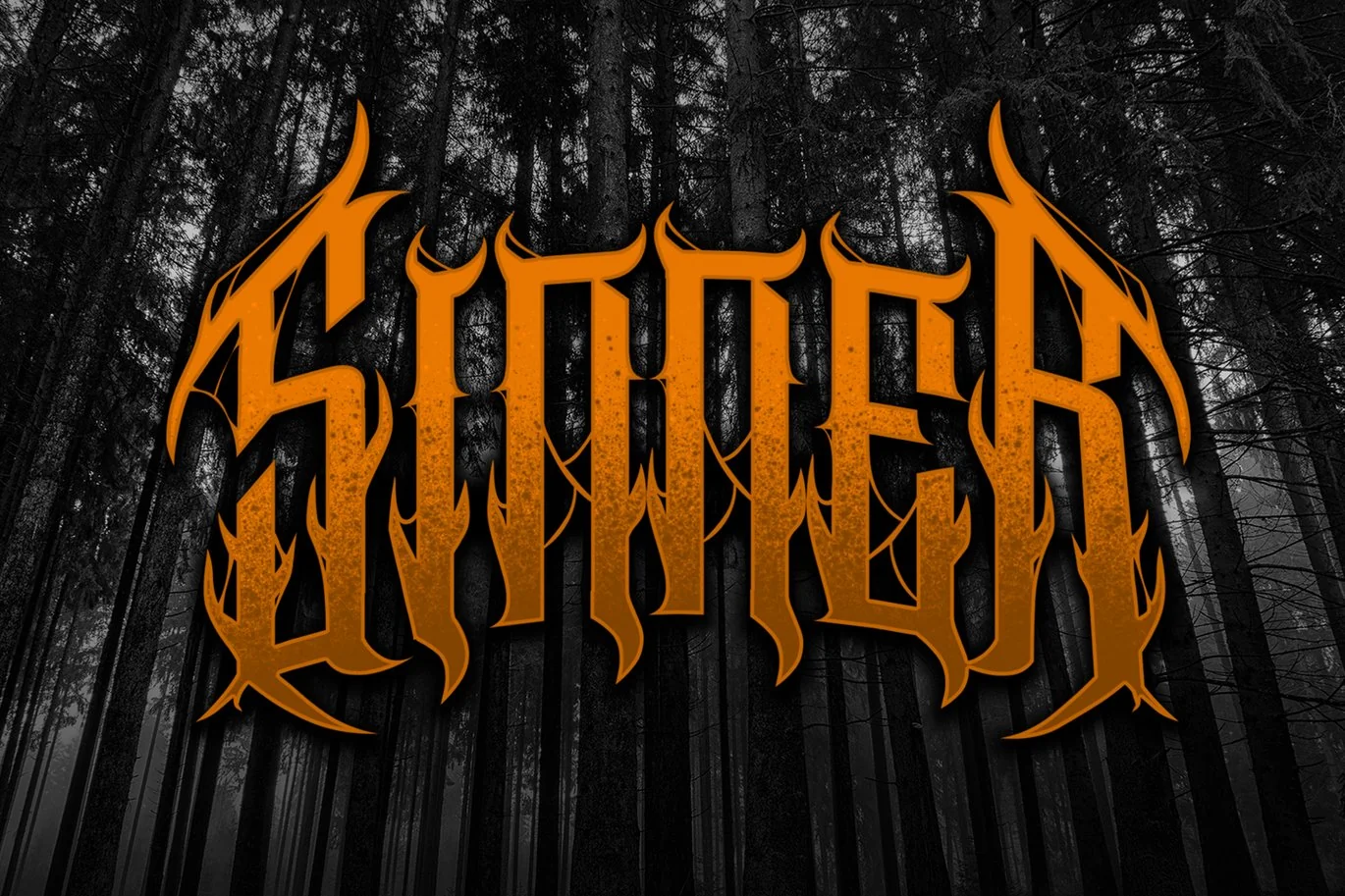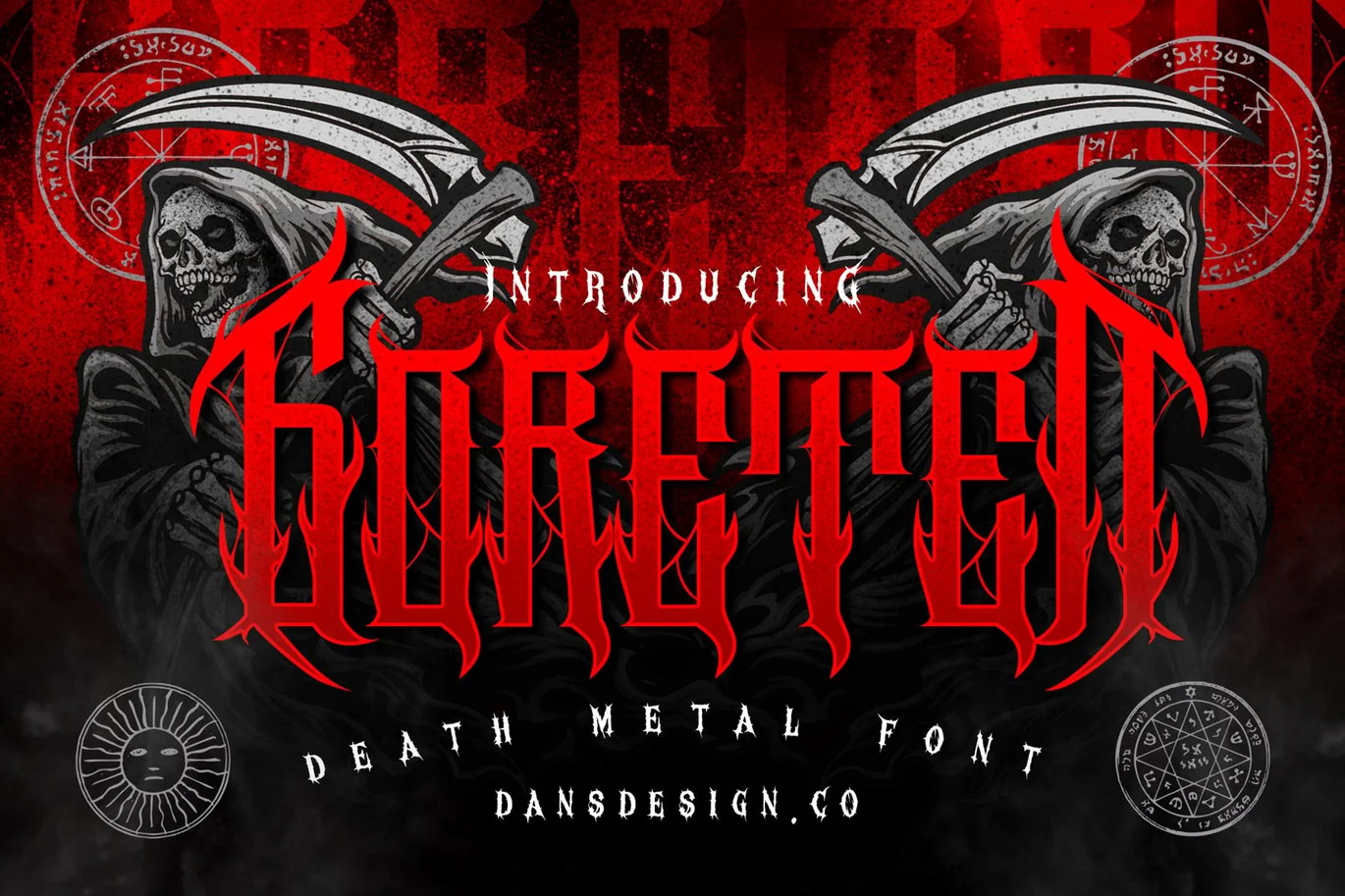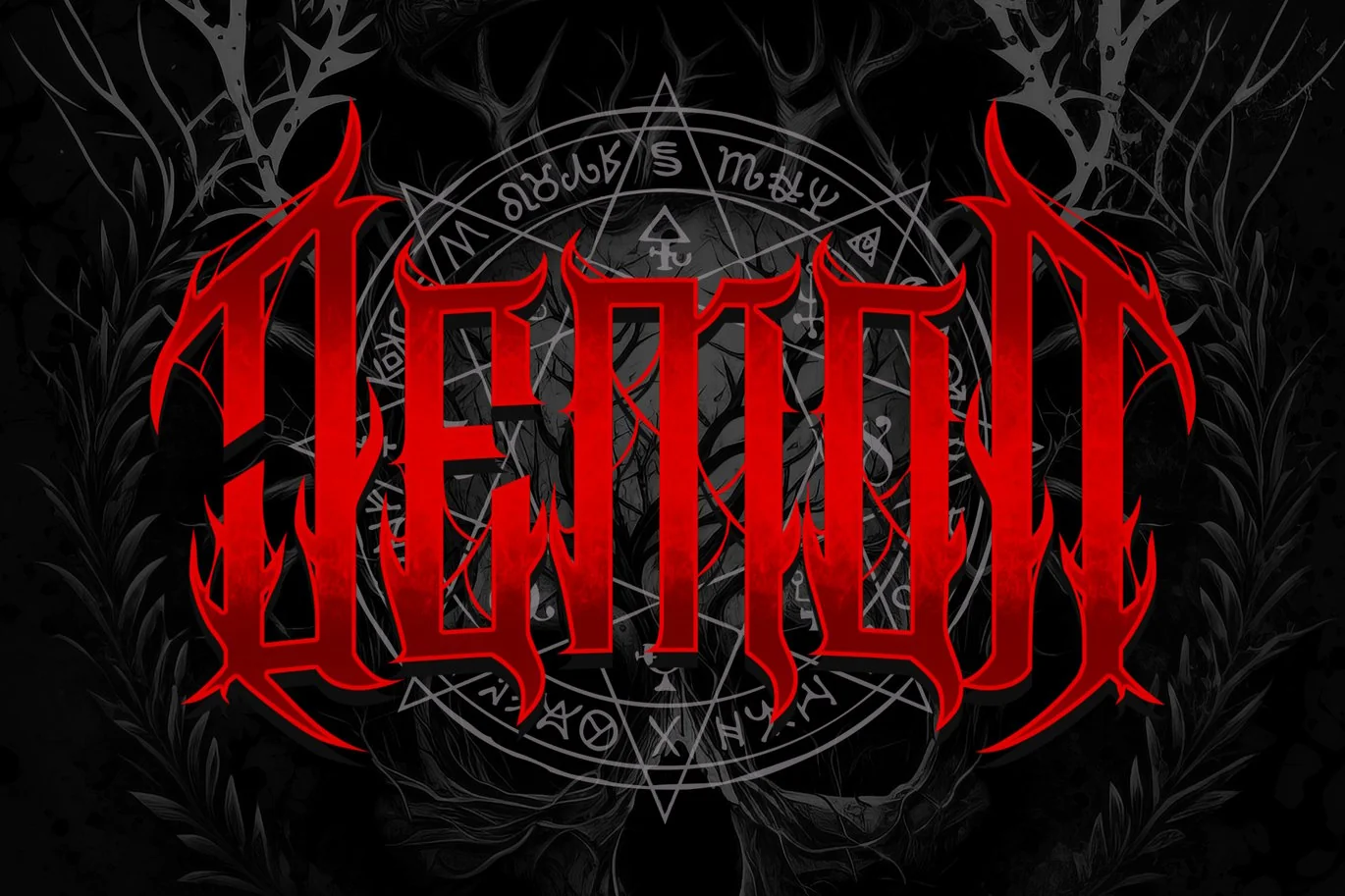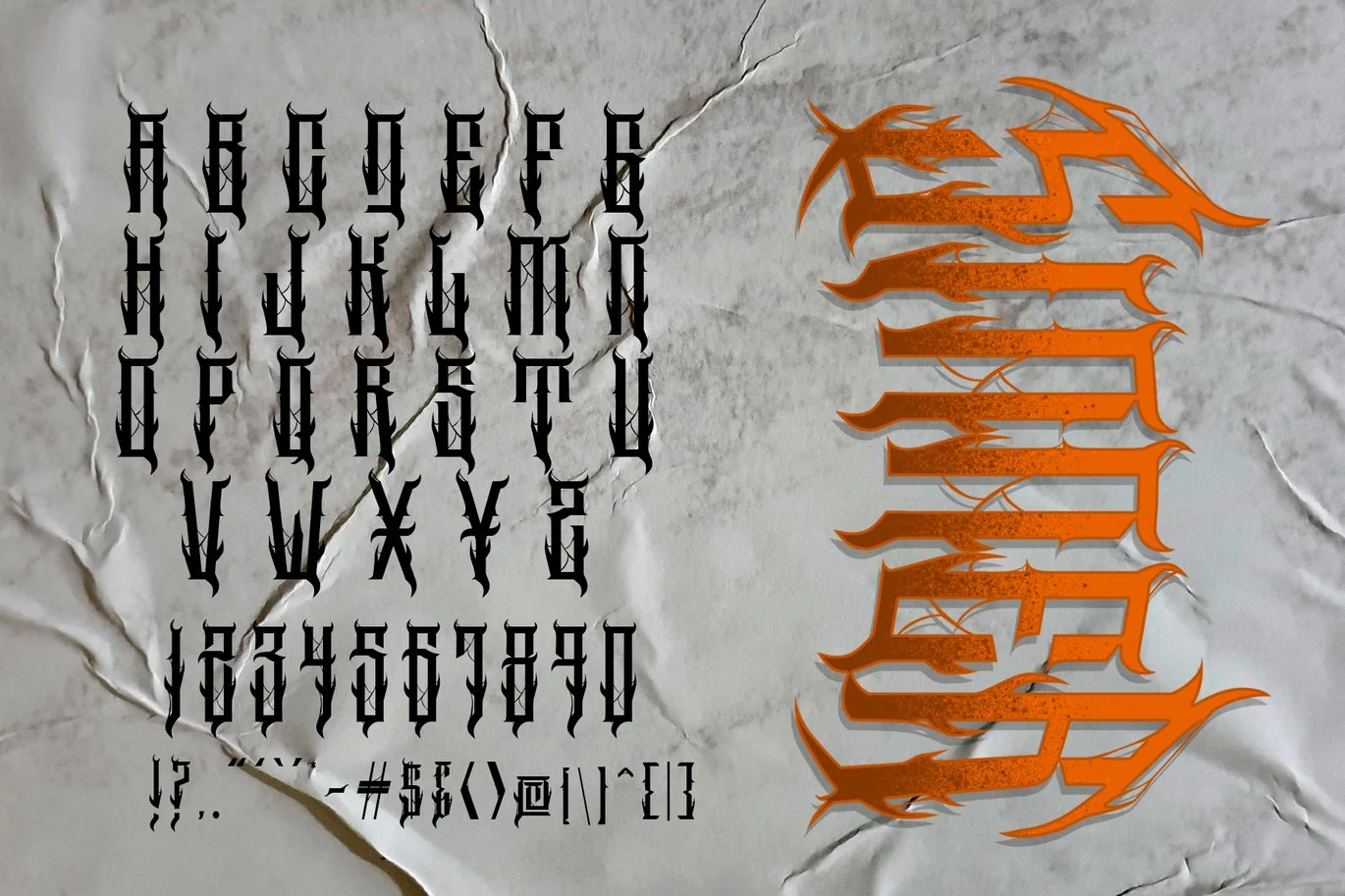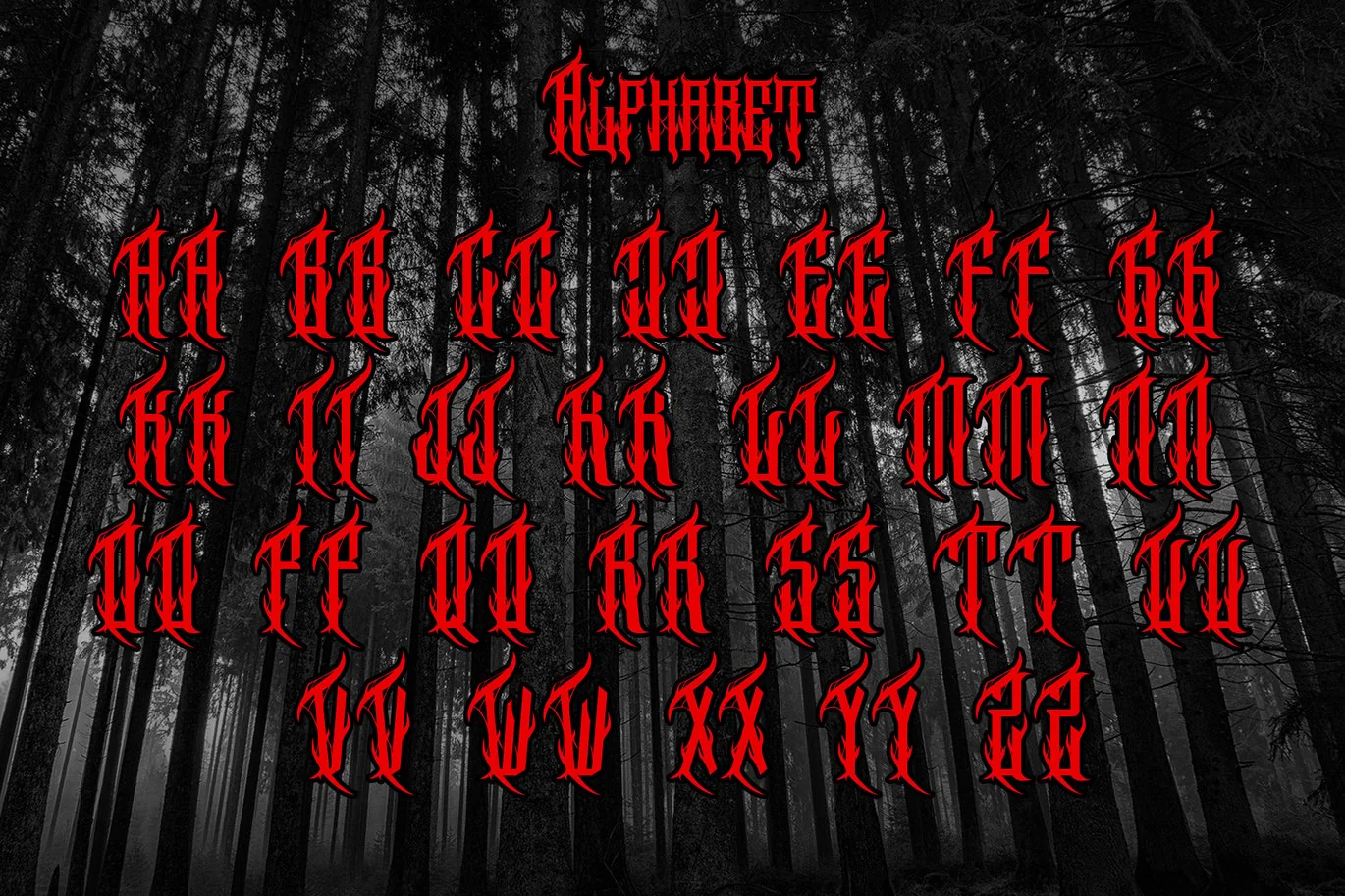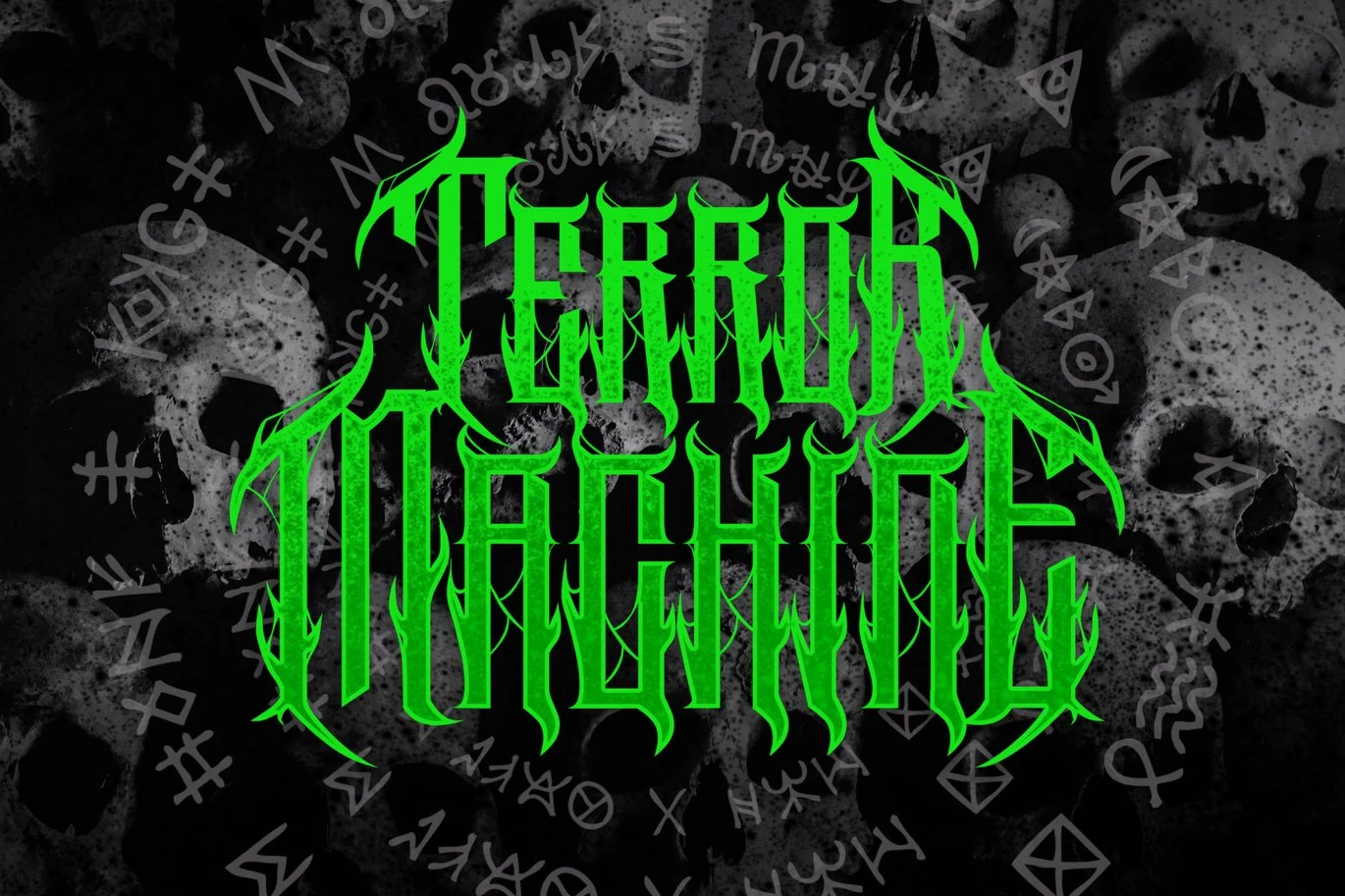
Goreten Vintage Metal Horror Font
Goreten Vintage Metal Horror Font is distinct, highly detailed, and Horror Metal Font font. It would make a great choice for exquisite Music, Poster, retro-urban designs, tattoo business branding, logos, vintage designs, and more.